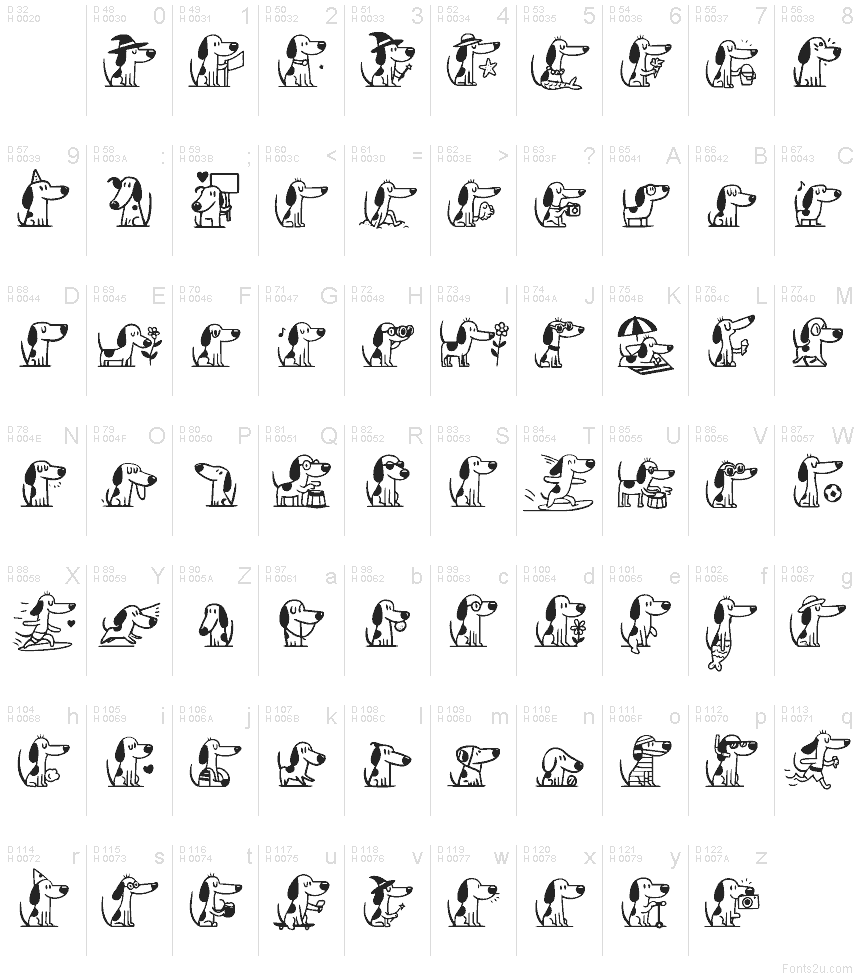
Dogpixur
Dogpixur font by BlackFridayFont FMF is a free animals dingbat typeface that packs a whole kennel of quirky, line-drawn dogs into your keyboard. From pups in sunglasses and bandanas to skaters and mail-carrying sidekicks, each glyph feels like a tiny comic strip, with clean black strokes and just enough white space to stay readable at small sizes. The consistent pose and proportions make the dogs feel like a cast of characters you can instantly reuse across a project.
Using Dogpixur, you can quickly add personality to kids’ book covers, pet shop branding, vet clinic signage, greeting cards, stickers, and playful social posts. The dogs line up neatly into borders or patterns, and this free font also works beautifully as a set of icons for loyalty cards or adoption events. For a tidy, modern look, pair Dogpixur with a simple geometric sans serif and keep the dogs one solid color, letting their expressive silhouettes do the storytelling.